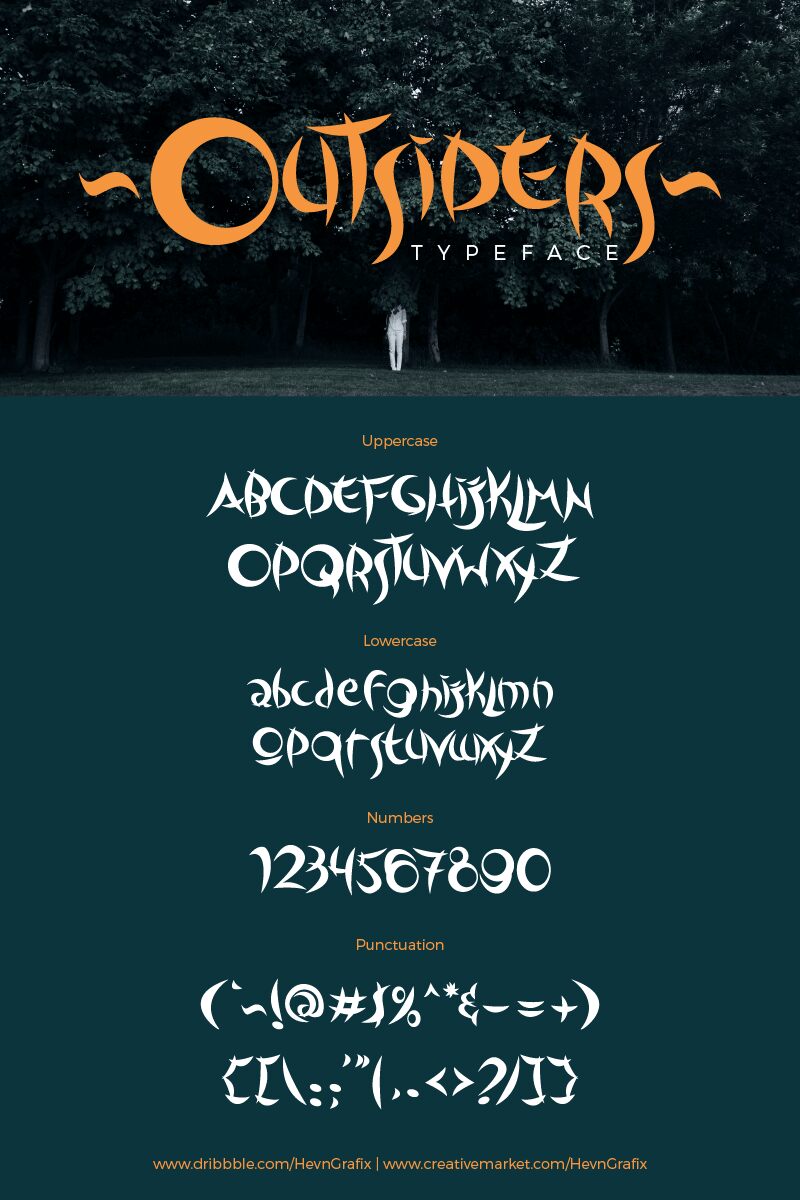
Outsiders is a captivating display font that exudes a bold, dynamic presence. Designed by Arie Hadianto, this typeface boasts a striking aesthetic characterized by its sharp, angular letterforms and distinctive flourishes. The unique interplay of curves and edges creates a sense of movement and energy, making Outsiders an ideal choice for attention-grabbing headlines, branding, and editorial design.
Its versatility extends beyond traditional typographic applications, as Outsiders can also lend itself to impactful visual identities, packaging, and even digital interfaces. Whether you seek a font that commands attention or one that seamlessly blends into a visually striking composition, Outsiders offers a memorable and distinctive typographic solution.
My very first font, inspired by the Outcast comic book title logo.
Outsiders